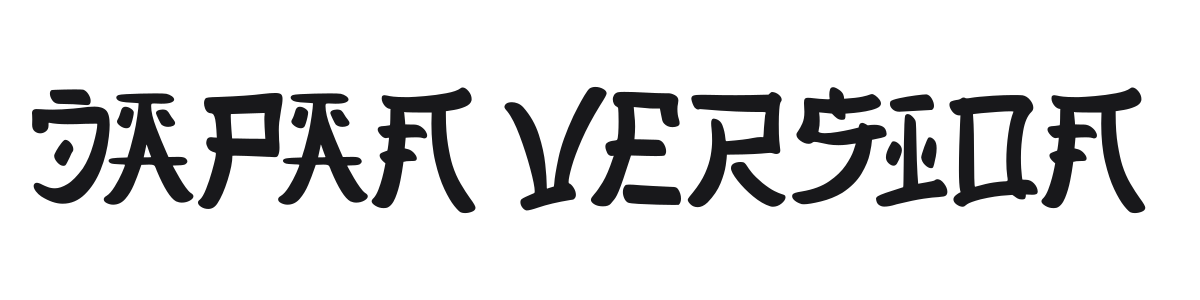
Japan Version
Japan Version is a bold Latin display font constructed to evoke the visual logic of Japanese calligraphy and kanji brushwork. Each character is broken into deliberate angular strokes with flat, cut terminals that mimic the segmented structure of East Asian writing. It reads immediately as a cultural reference, making it a strong choice for titles, packaging, or any context where a Japanese aesthetic is the point.